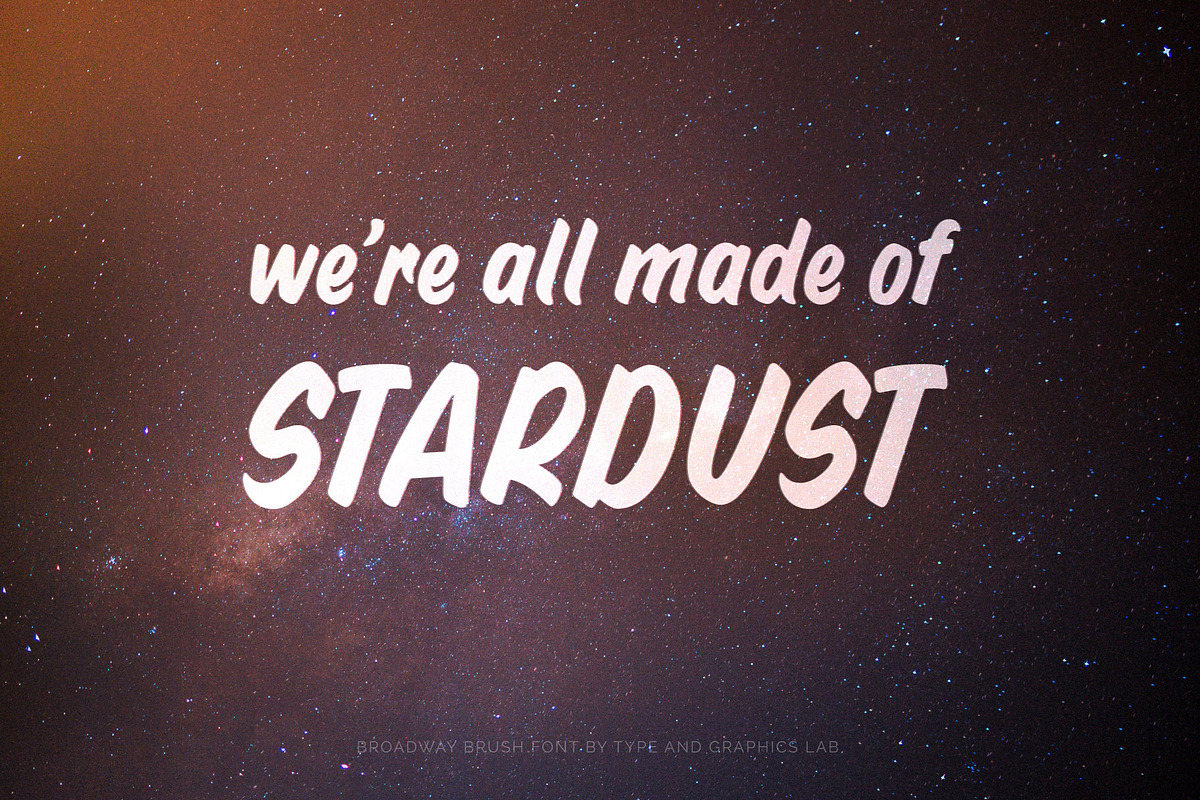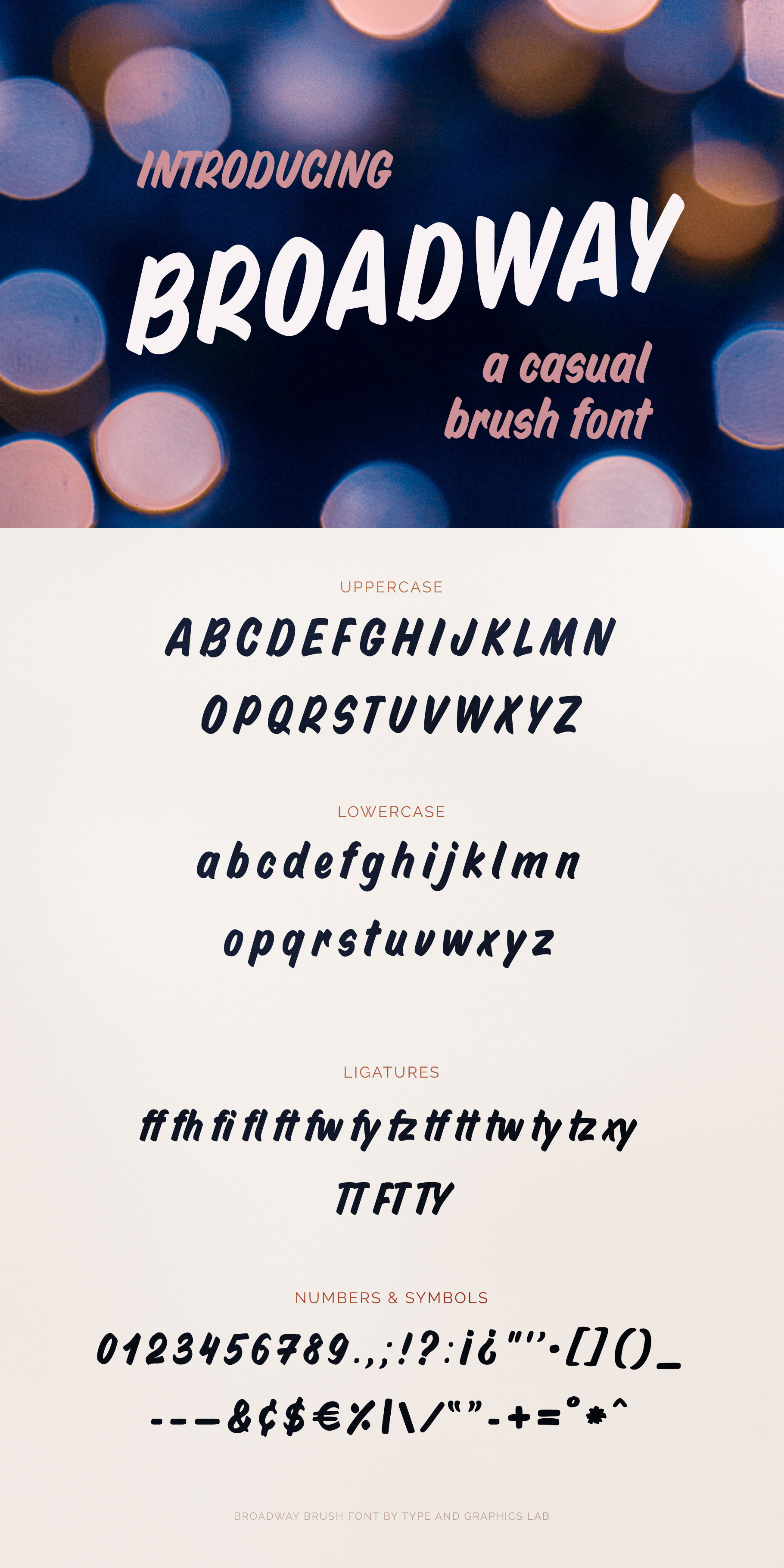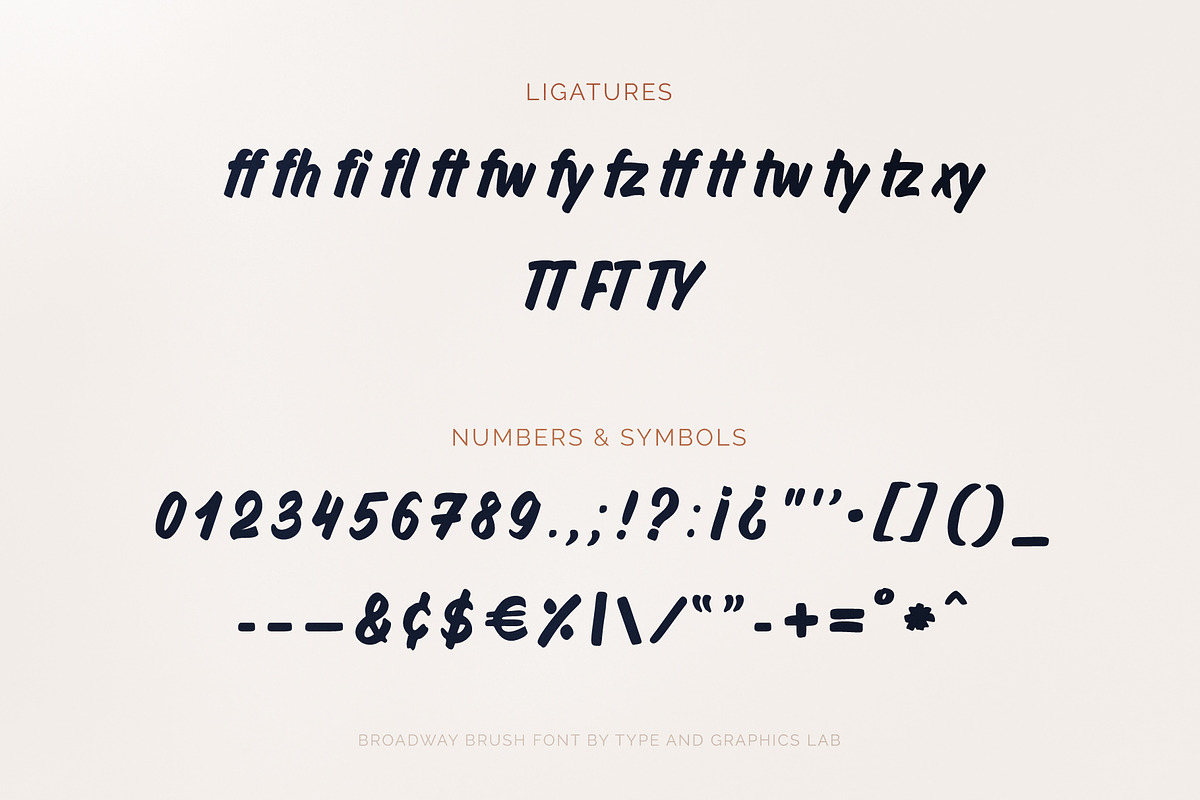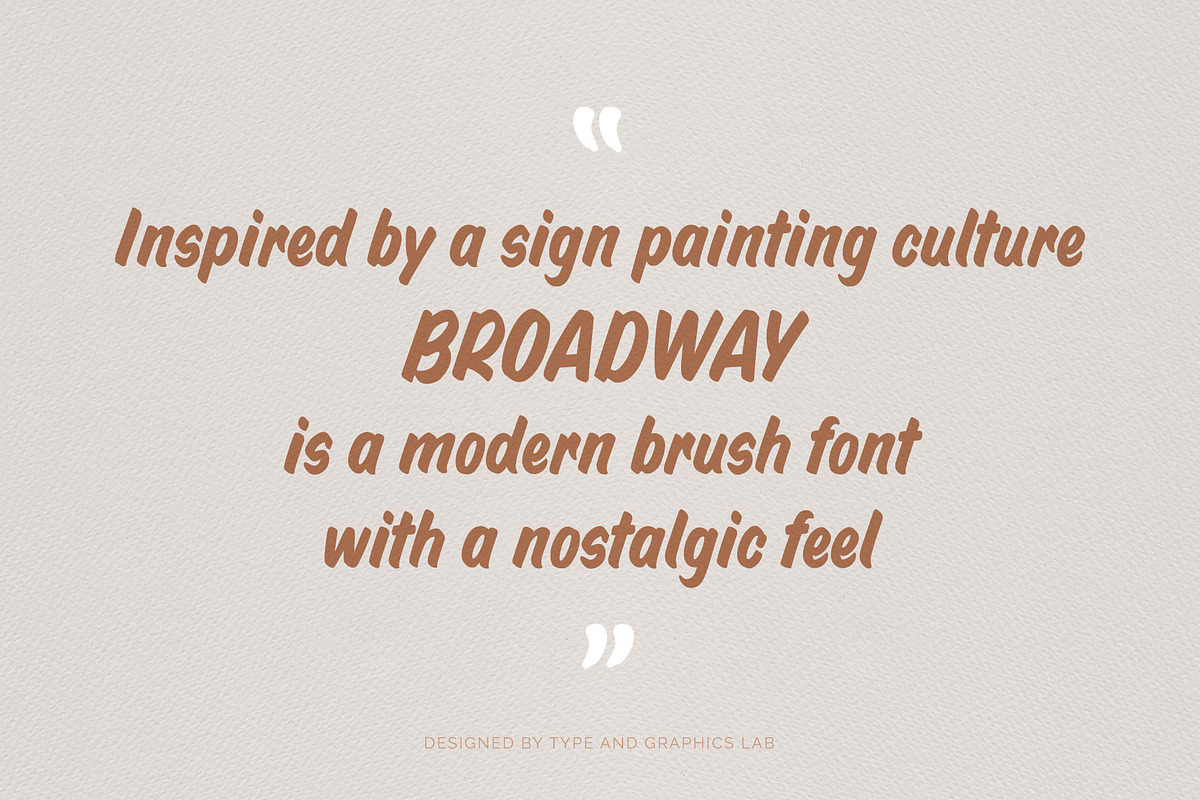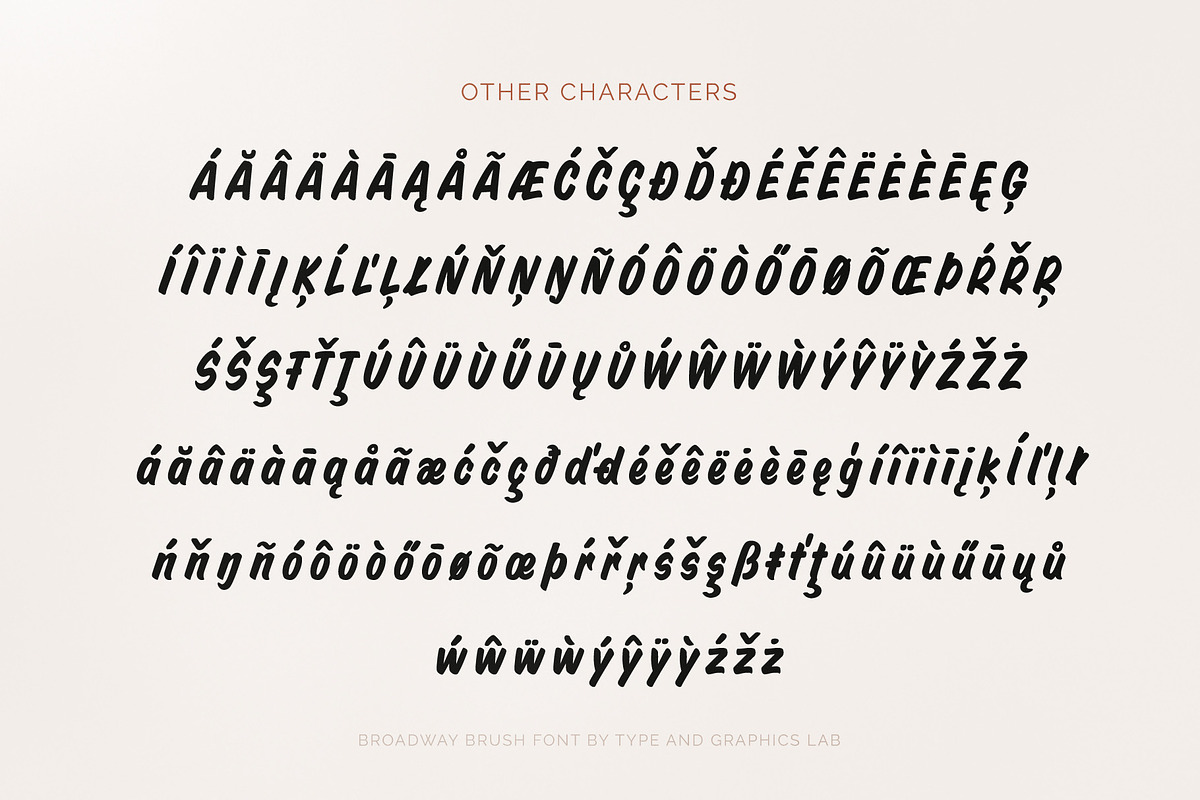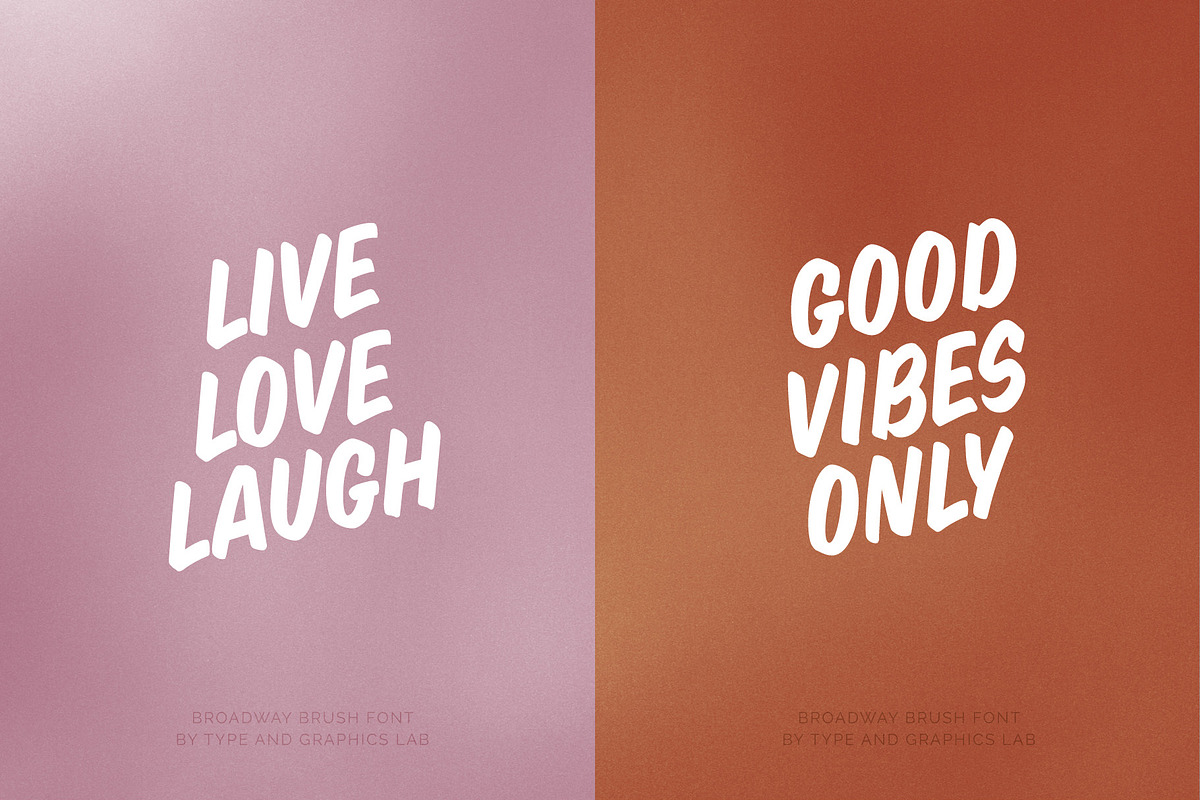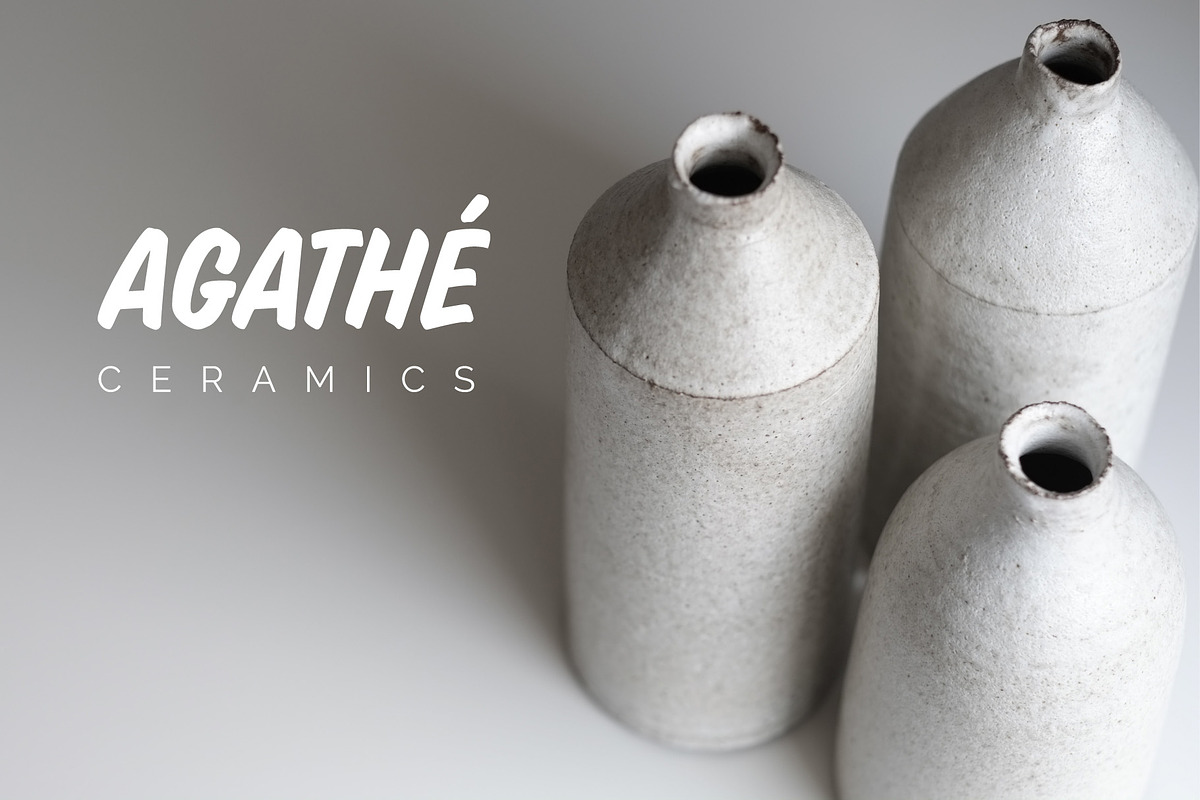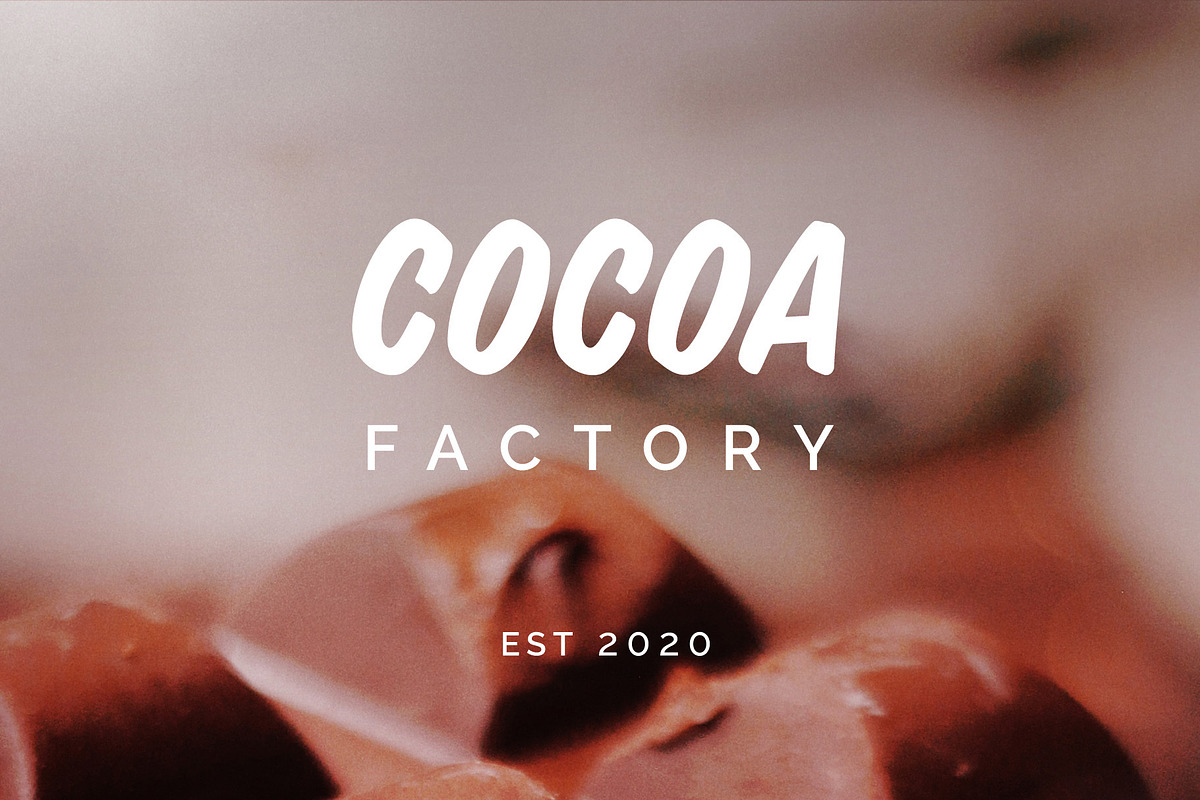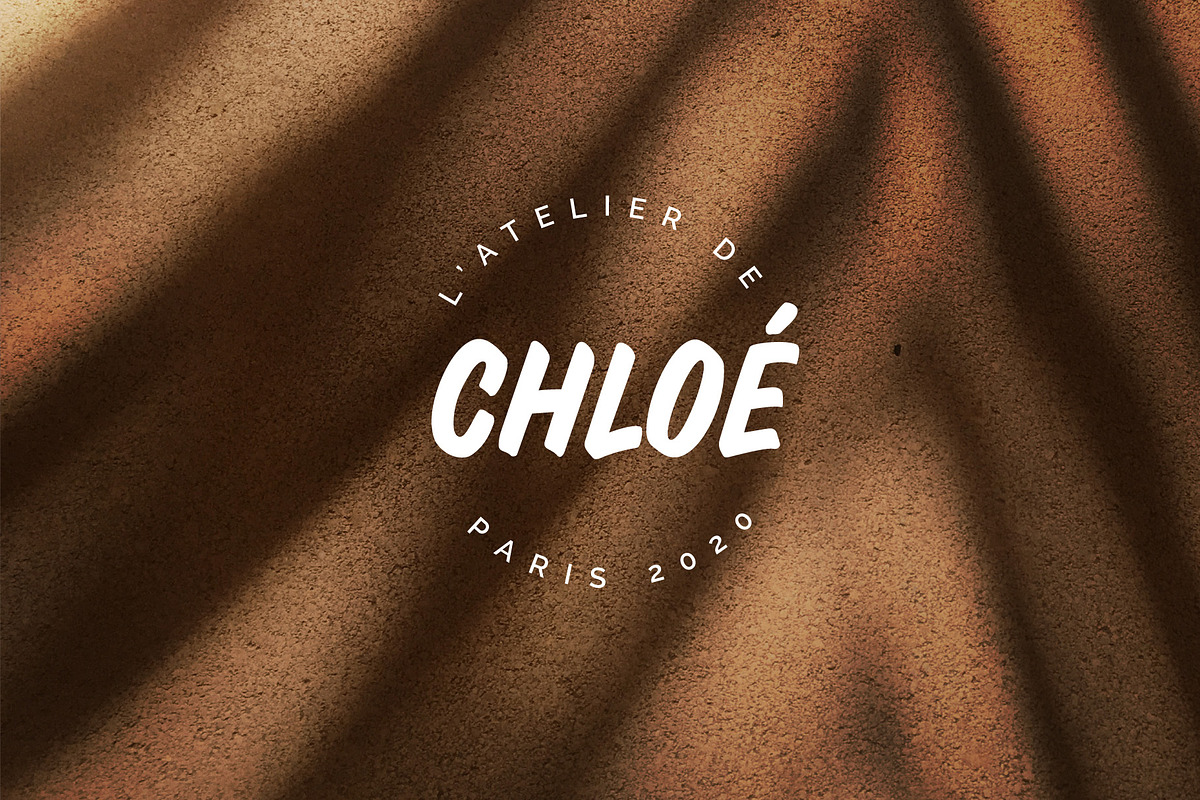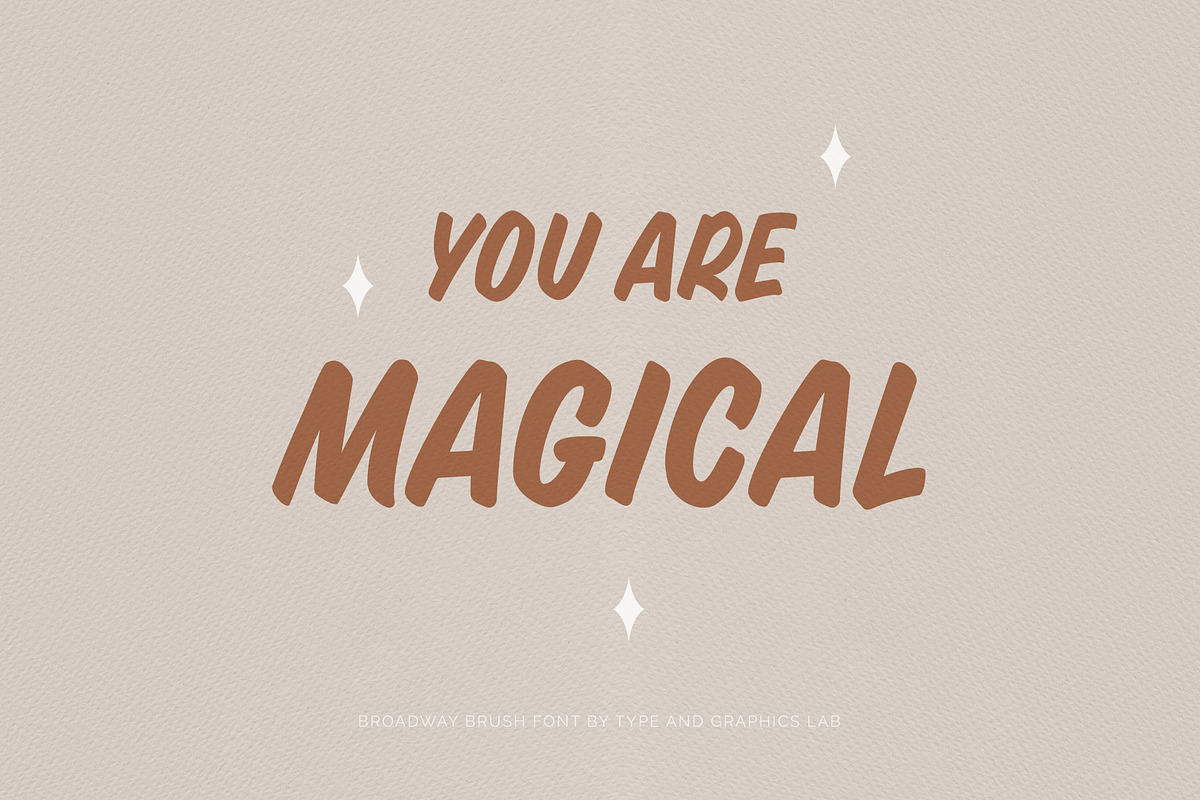
Broadway Brush Font
Introducing Broadway, a modern brush font with a nostalgic feel. Inspired by a sign painting culture, Broadway would be perfect for casual yet vivid and playful designs, including logos & branding, social media posts, print & digital advertisements, product designs, and many more. Check out the previews for inspiration!